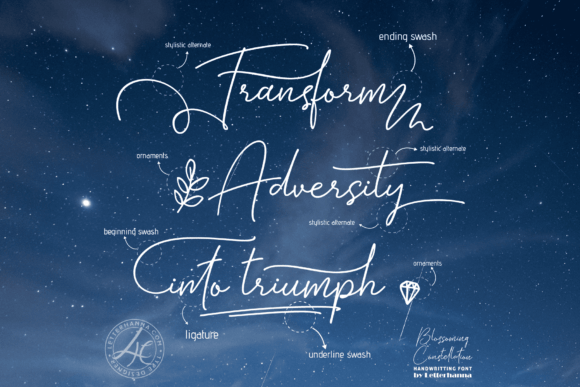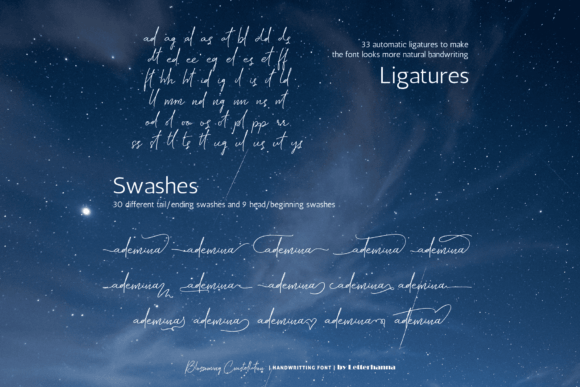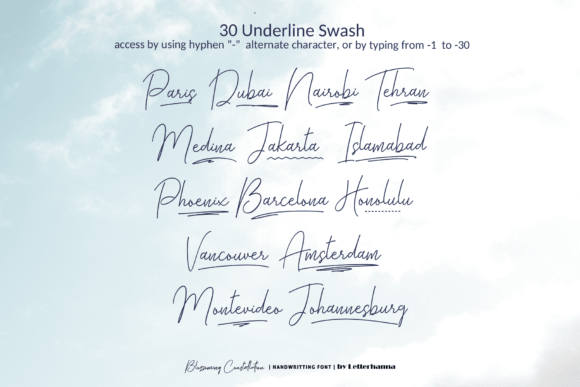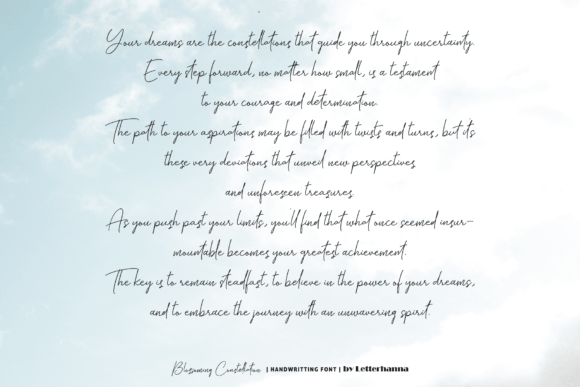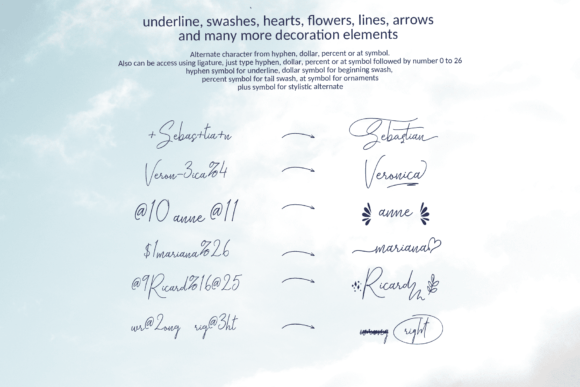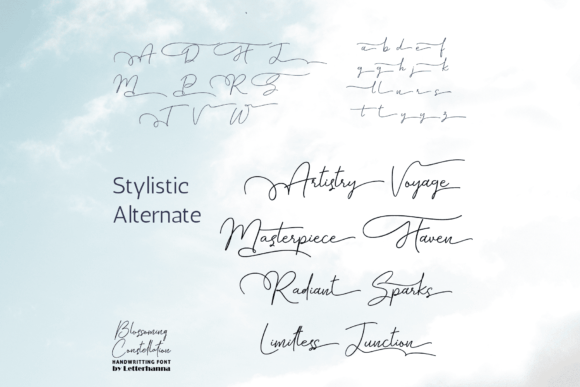
Unlock the Magic of the Night Sky with the Blossoming Constellation Font
Do you remember that moment when you first discovered your favorite font, and it ignited a spark within you, pushing the boundaries of your creativity? For many designers, this moment is a defining experience that shapes their artistic journey. I’m sure you’ve had a similar experience, and it’s this thrill that drives us to explore new horizons of design.
Introducing the Blossoming Constellation Font, a free-spirited handwritten font that weaves the celestial allure of constellations with the untamed beauty of blossoming flowers. This enchanting font is designed to guide your imagination on a journey where every stroke is a testament to the limitless possibilities of creativity and self-expression.
As a valuable addition to any designer’s toolkit, the Blossoming Constellation Font offers a unique blend of elegance and whimsy, making it perfect for artistic projects, personal messages, or branding. Its versatility and free-spirited nature make it an ideal choice for designers seeking to add a touch of magic to their work.
Blossoming Constellation Font Key Features
- Character Count: 250+ unique characters, including uppercase and lowercase letters, numbers, and special symbols.
- Unique Characteristics: Hand-drawn, whimsical design with a floral and celestial theme, perfect for creating a magical and dreamy atmosphere.
- Font Style: Blossoming Constellation Font comes in 3 styles: Regular, Italic, and Bold, allowing for varied typographic expressions.
Blossoming Constellation Font Review
I recently had the chance to dive into the Blossoming Constellation Font, and I must say, it’s a unique and captivating design. ✨ The flowing curves and organic shapes give it a whimsical feel that’s perfect for creative projects.
Here are some of the things that I think work well in this font:
- ✨ The varying line widths and subtle texture add depth and visual interest.
- ✨ The letterforms are well-balanced, making it easy to read and use in longer blocks of text.
- ✨ The font’s versatility shines through in its ability to be used for both titles and body text.
- ⚠️ The font may not be the best choice for small text sizes, as the details can get lost.
- ⚠️ The organic feel may not be suitable for projects that require a more modern or minimalist aesthetic.
Overall, I think the Blossoming Constellation Font is a great addition to any designer’s toolkit. It’s perfect for projects that require a touch of whimsy and creativity. Just be mindful of the limitations, and you’ll be golden.
For optimal results, use the Blossoming Constellation Font in combination with other elegant and whimsical design elements, such as floral patterns and soft color schemes.
The Blossoming Constellation Font is suitable for a variety of designs, including:
- Floral-inspired artwork and graphics
- Watercolor textures to evoke a sense of ethereal wonder
- Soft pastel colors to create a dreamy ambiance
- Hand-drawn illustrations of clouds and stardust to enhance the celestial theme
- Astronomical images of stars, planets, or galaxies to create a sense of cosmic wonder
- Luxurious paper textures or foil stamping to add a touch of elegance
- Gold or silver accents to evoke a sense of luxury and sophistication